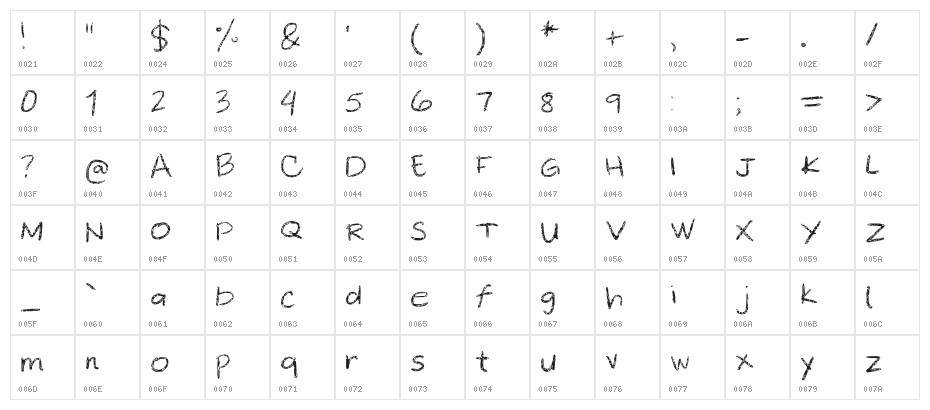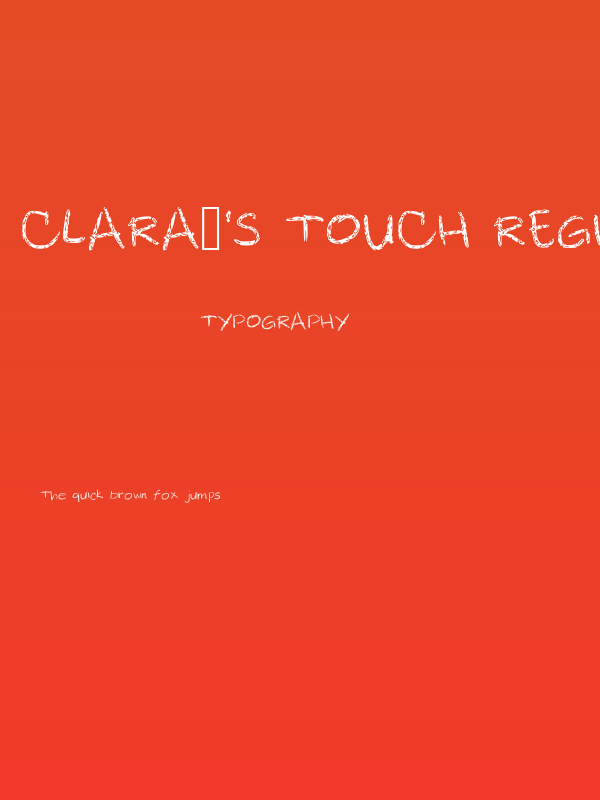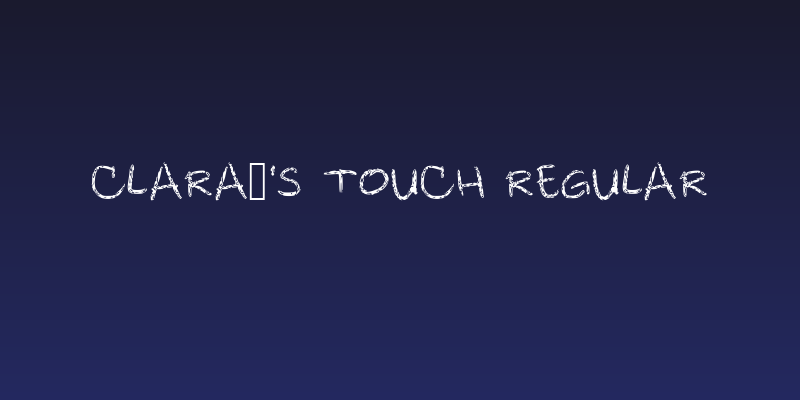
Clara's touch Regular Font
| Anwendungsfall | Logos, Posters, Artistic Branding |
| Vorgeschlagene Projekte | Ideal for creative projects such as posters, invitations, greeting cards, and artistic branding. |